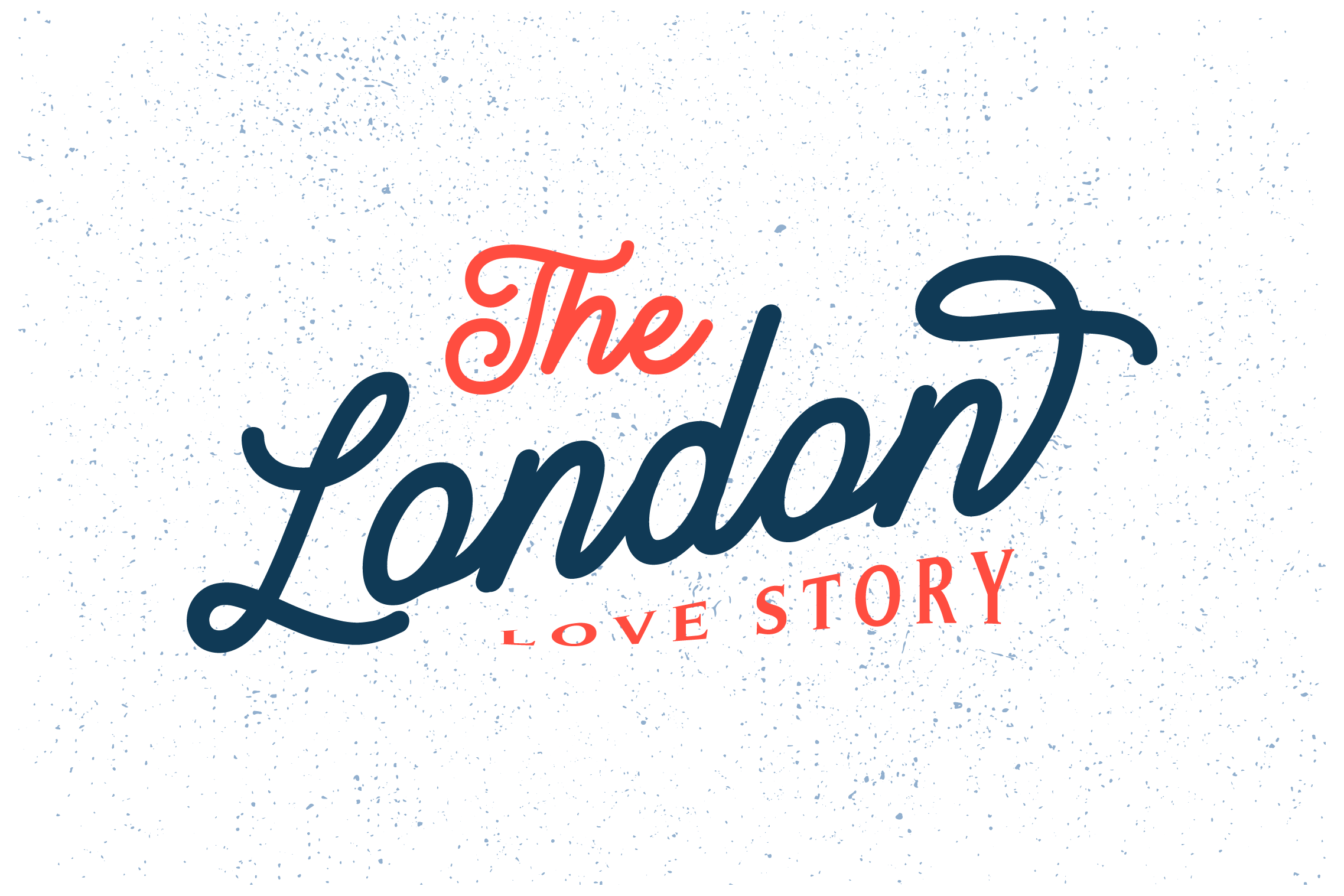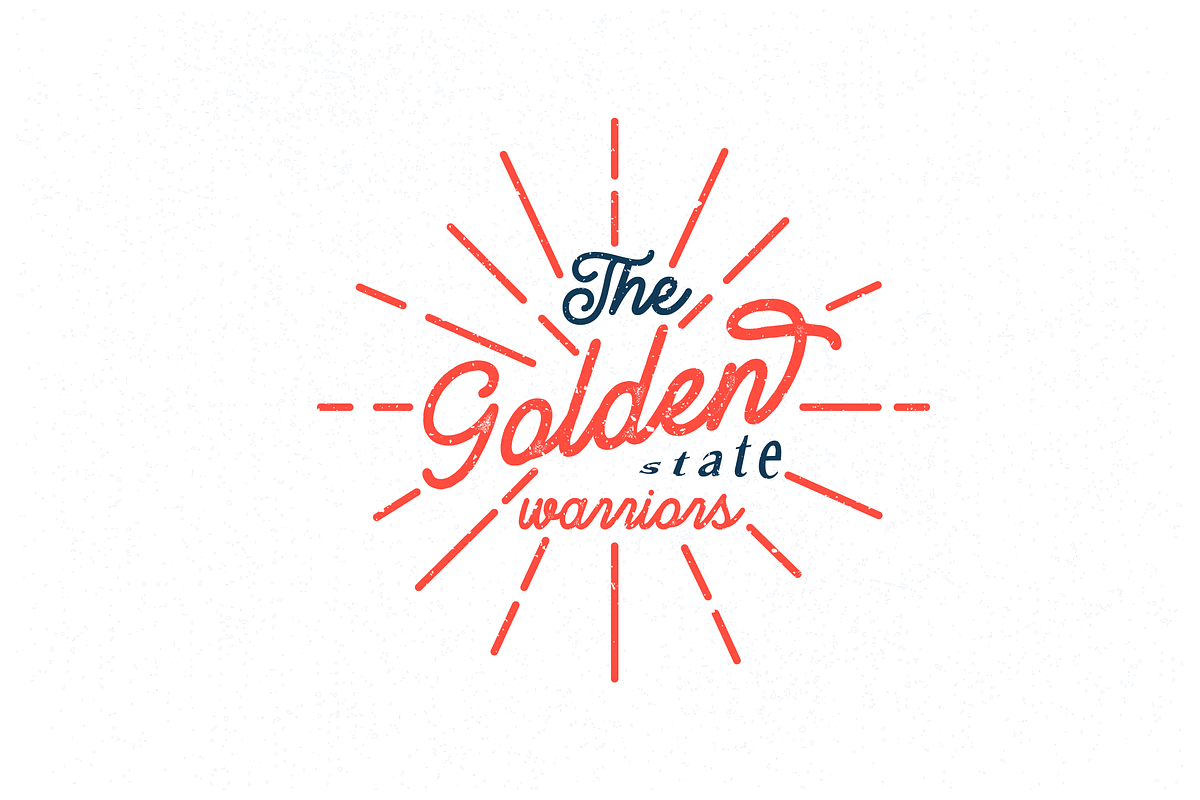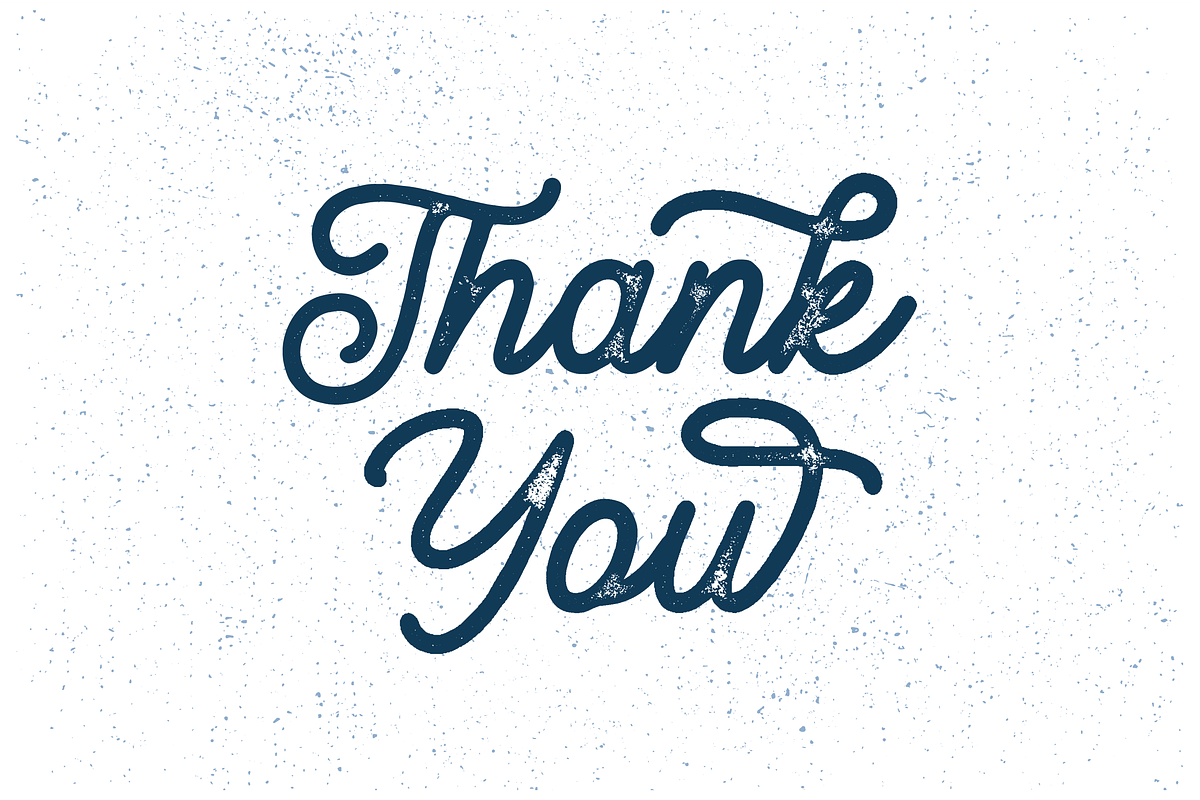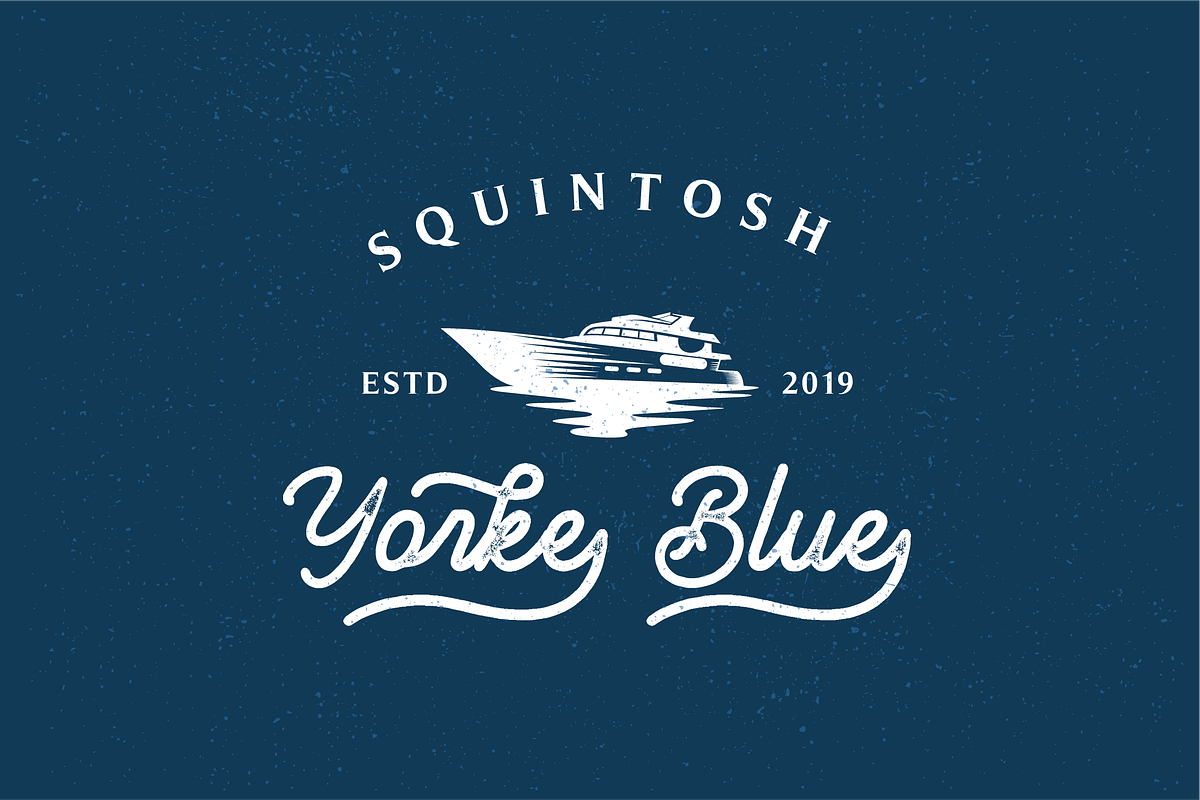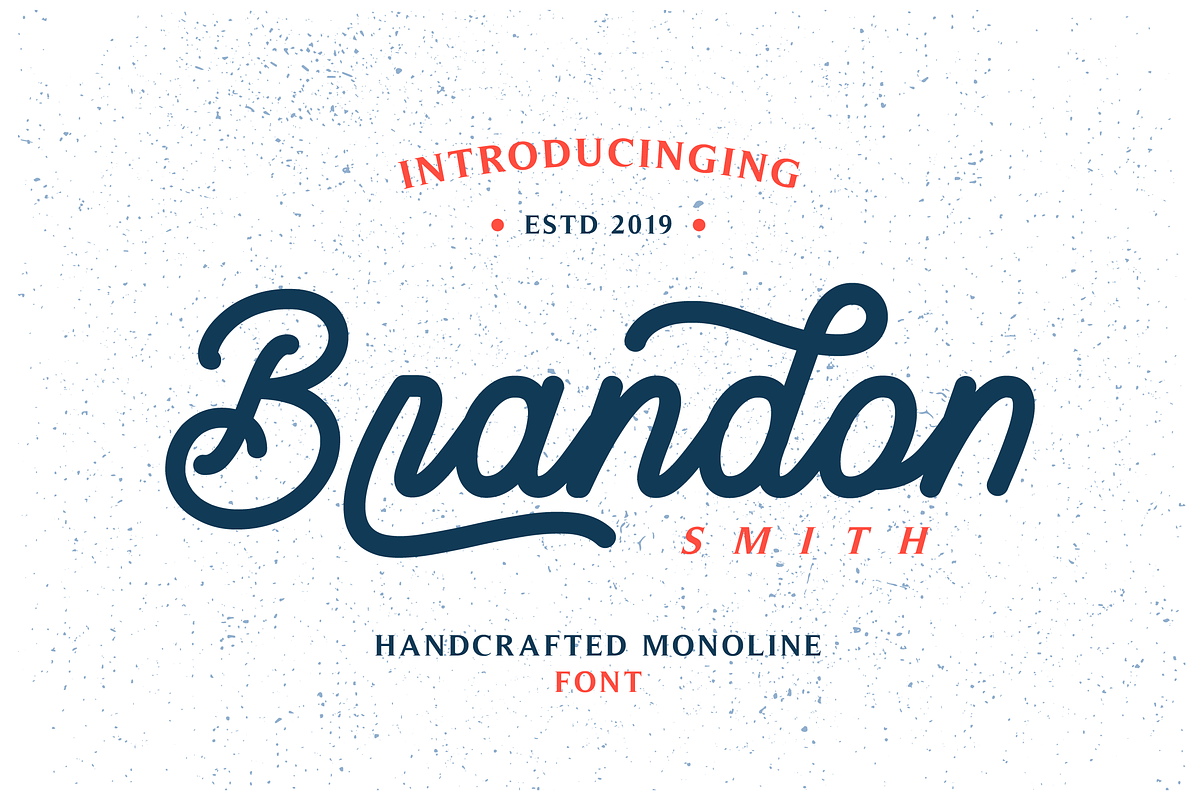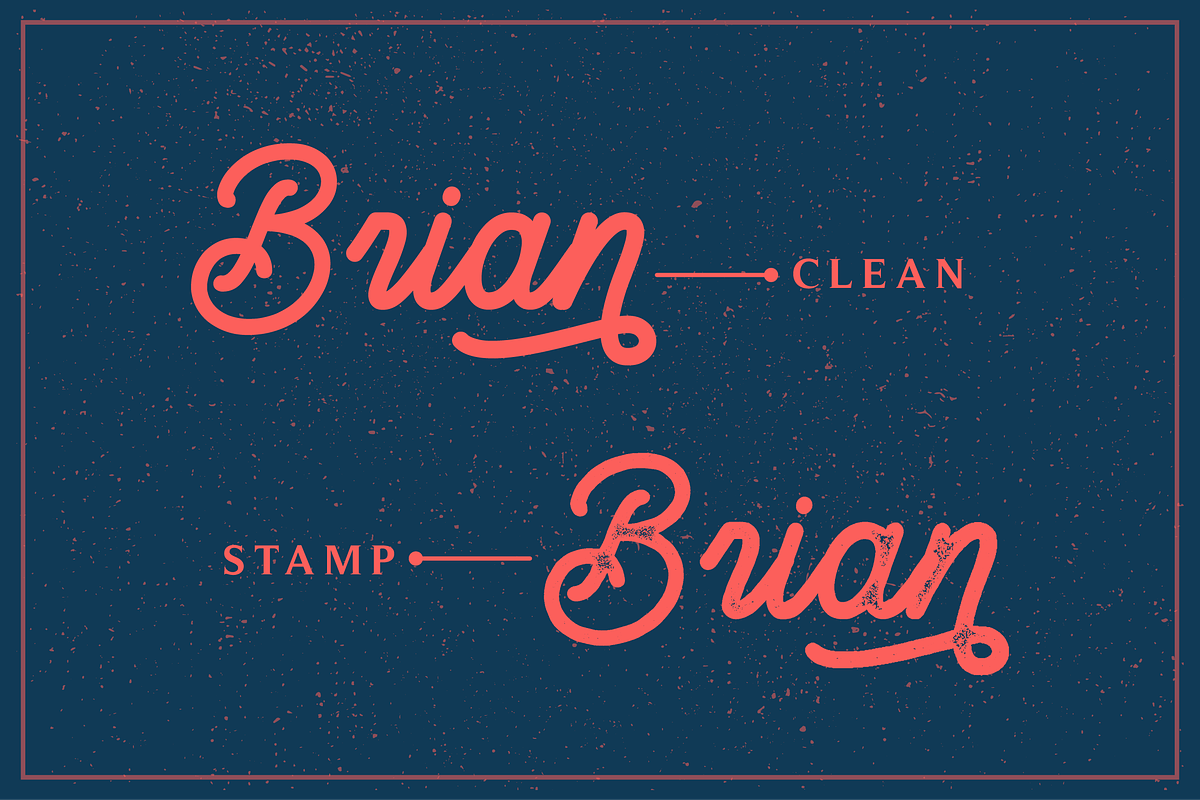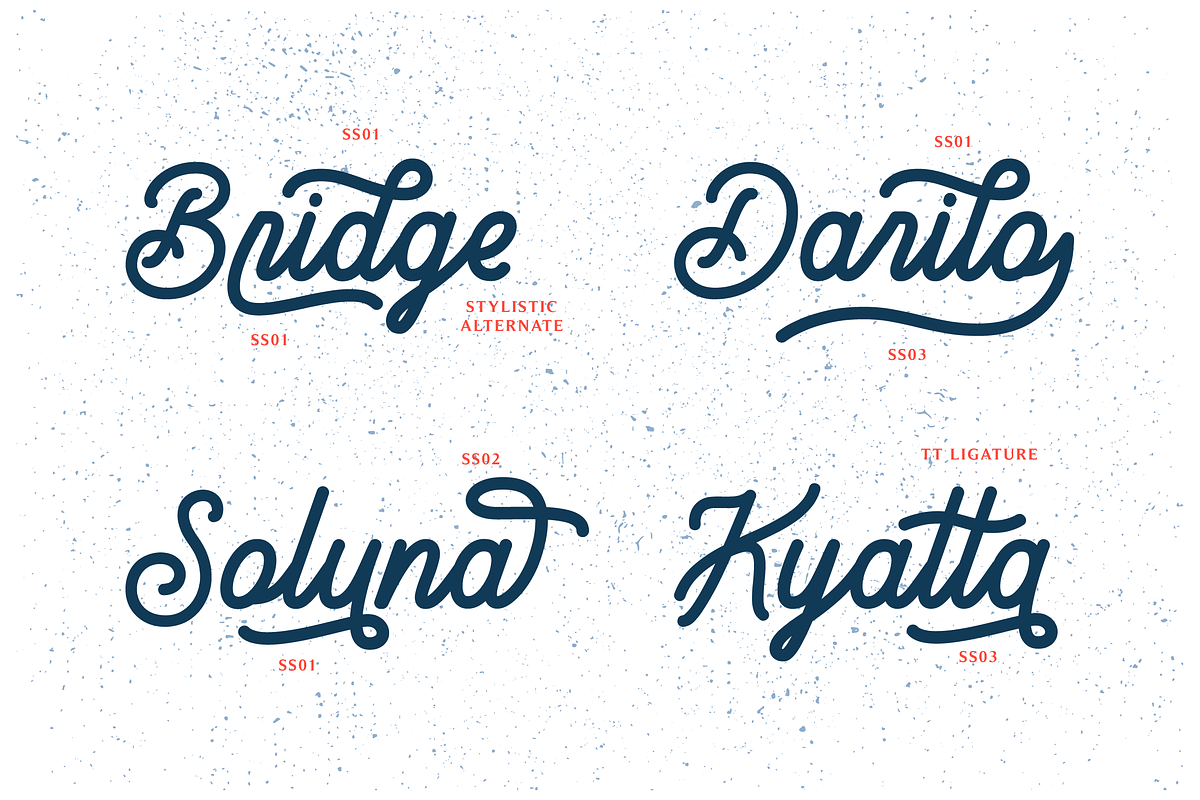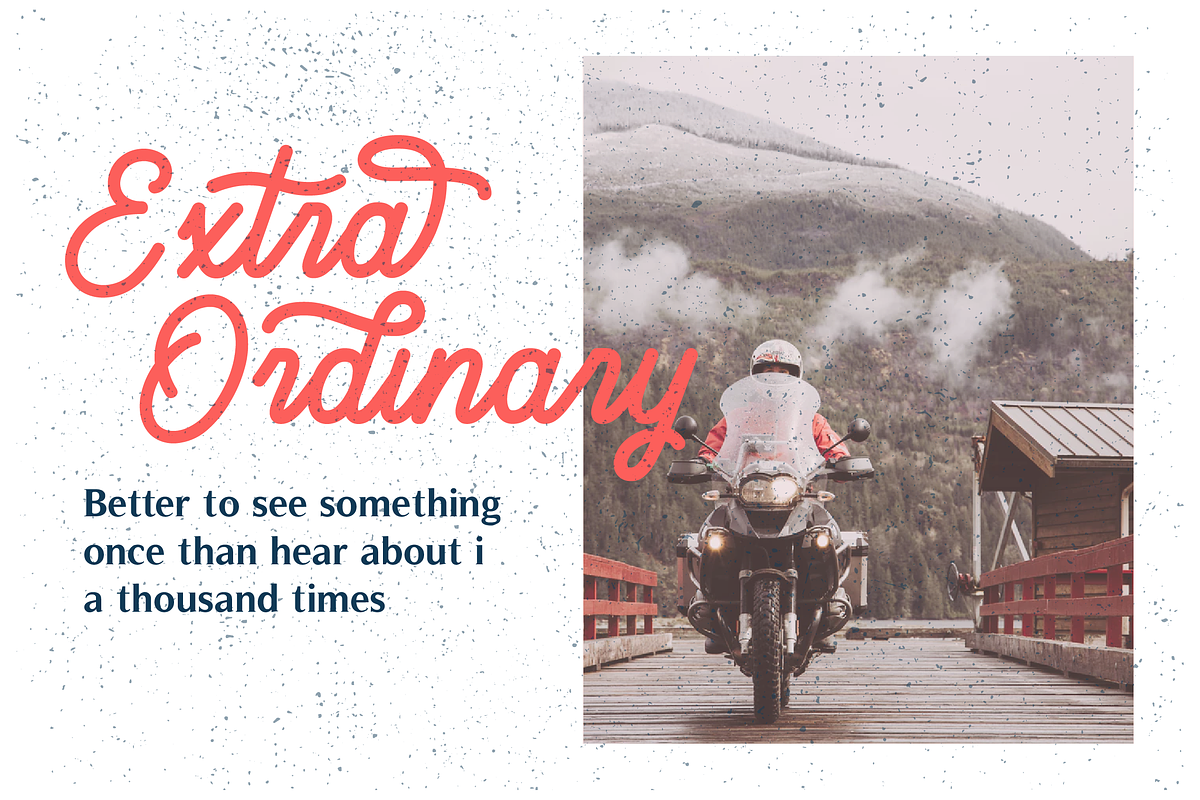
Brandon Smith - Monoline Font
Introducing an elegant monoline font, Brandon Smith!
Brandon Smith comes in two types of fonts, namely Brandon Smith Regular and Brandon Smith Stamp. Specific OpenType features include contextual alternates, stylistic alternates, initial and final forms, multiple alternate glyphs for many letters (accessed through the glyphs panel), multilingual support, ligatures, and standard numbers.
- Uppercase and Lowercase Letter
- Number and Punctuation
- Stylistic Alternate, SS01, SS02, SS03
- Multilingual Accent : ÀÁÂÃÄÅÆÇÈÉÊËÌÍÎÏÐÑÒÓÔÕÖØÙÚÛÜÝßàáâãäåæçèéêëìíîïðñòóôõöøùúûüýÿ
- Brandon Smith Regular
- Brandon Smith Stamp